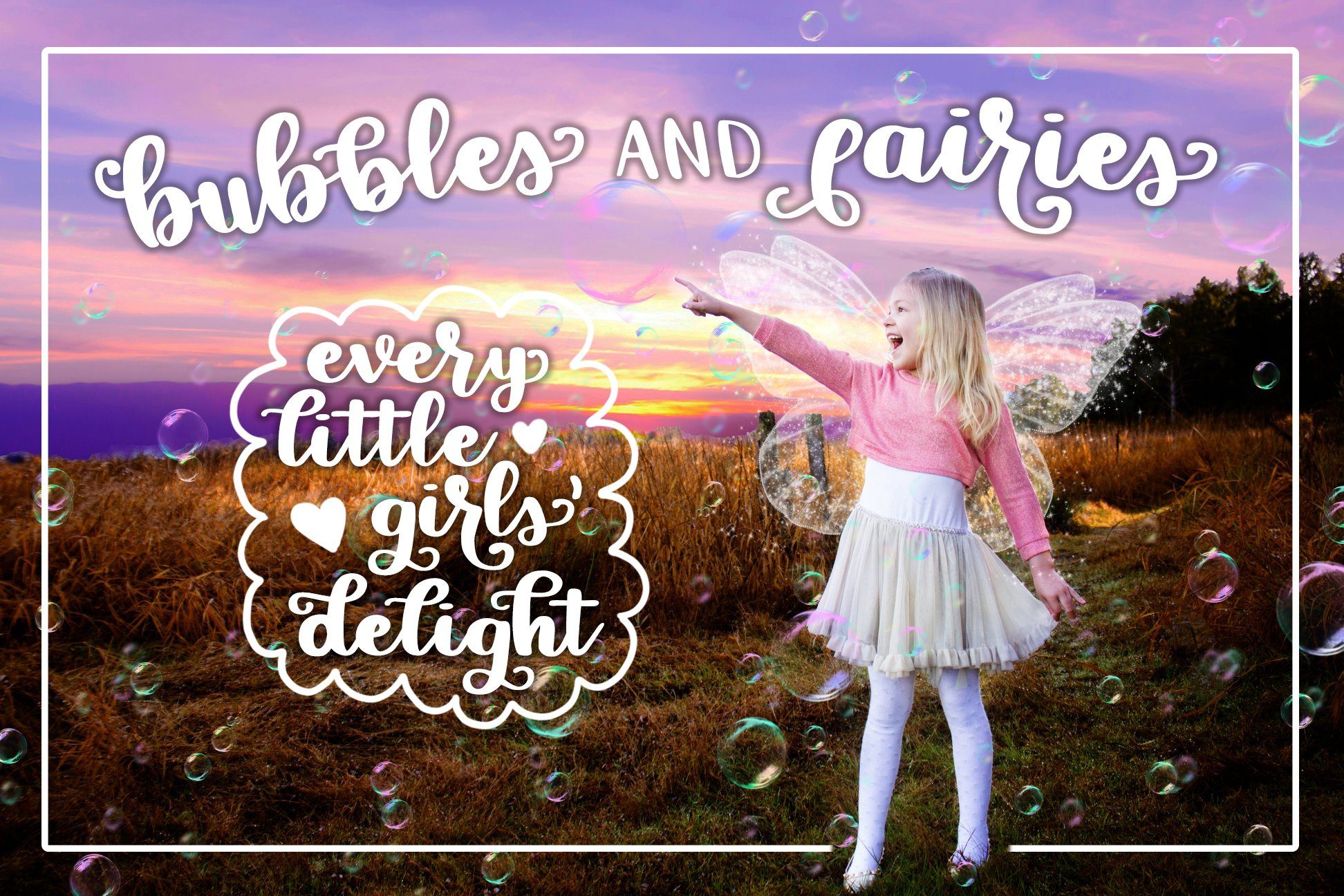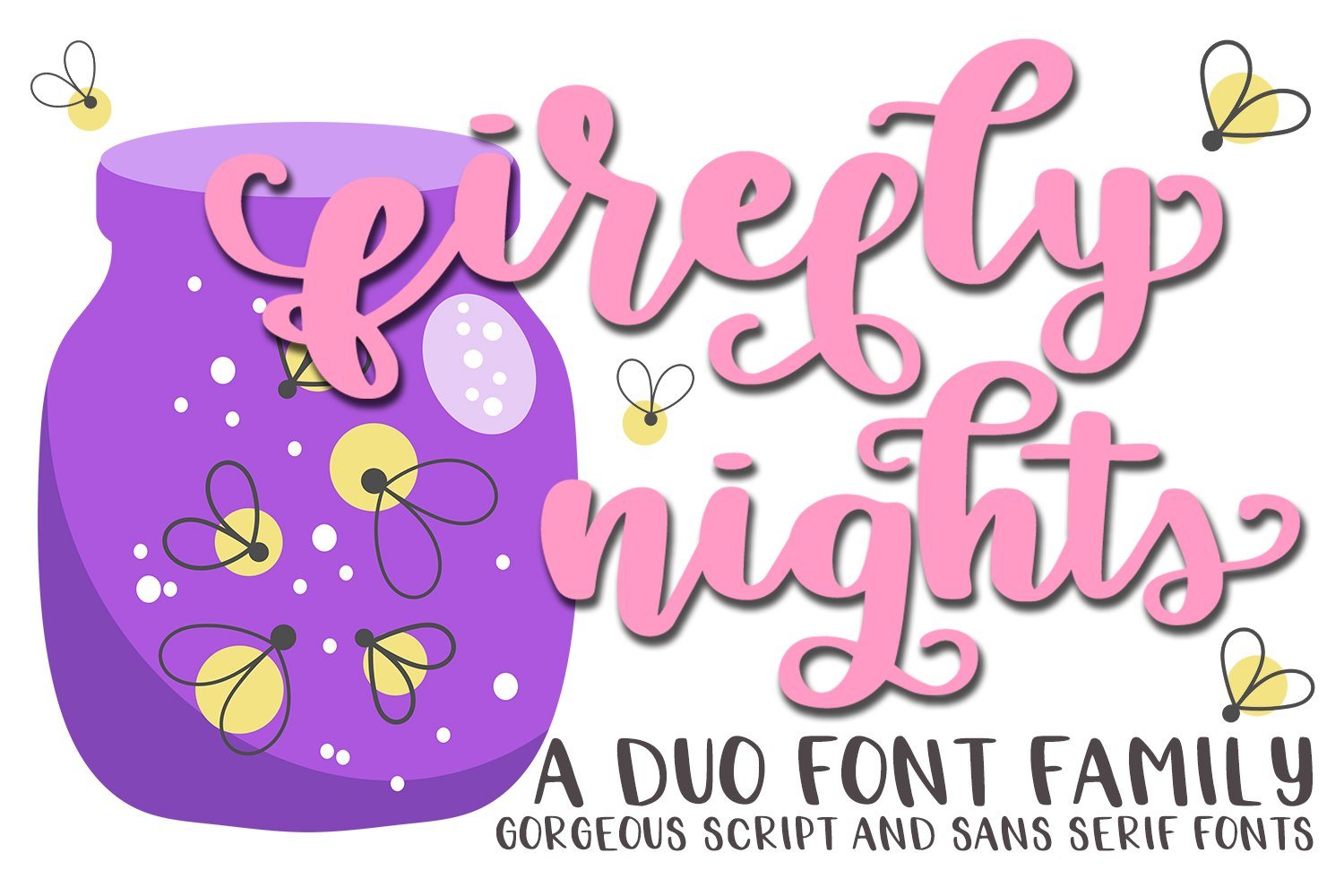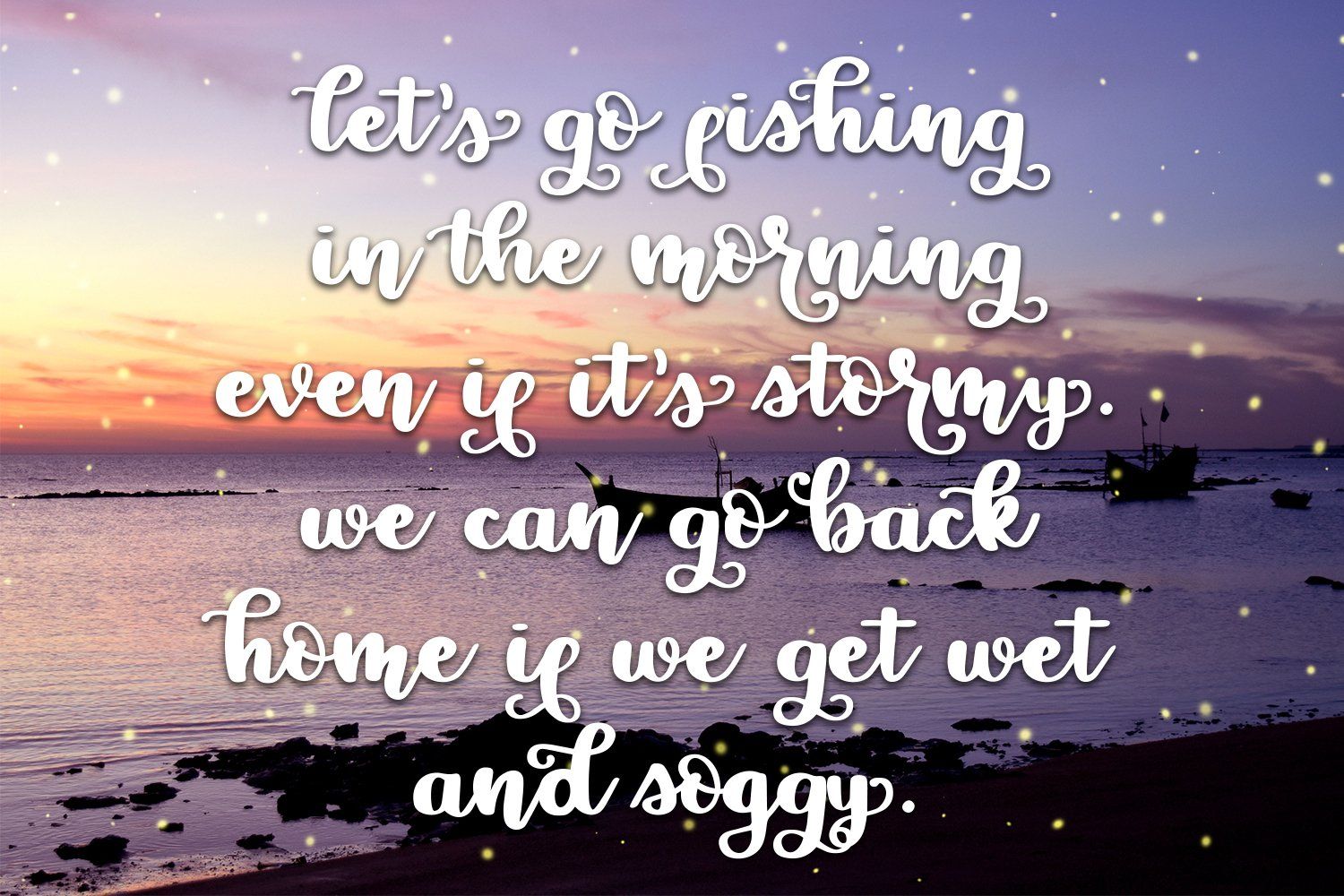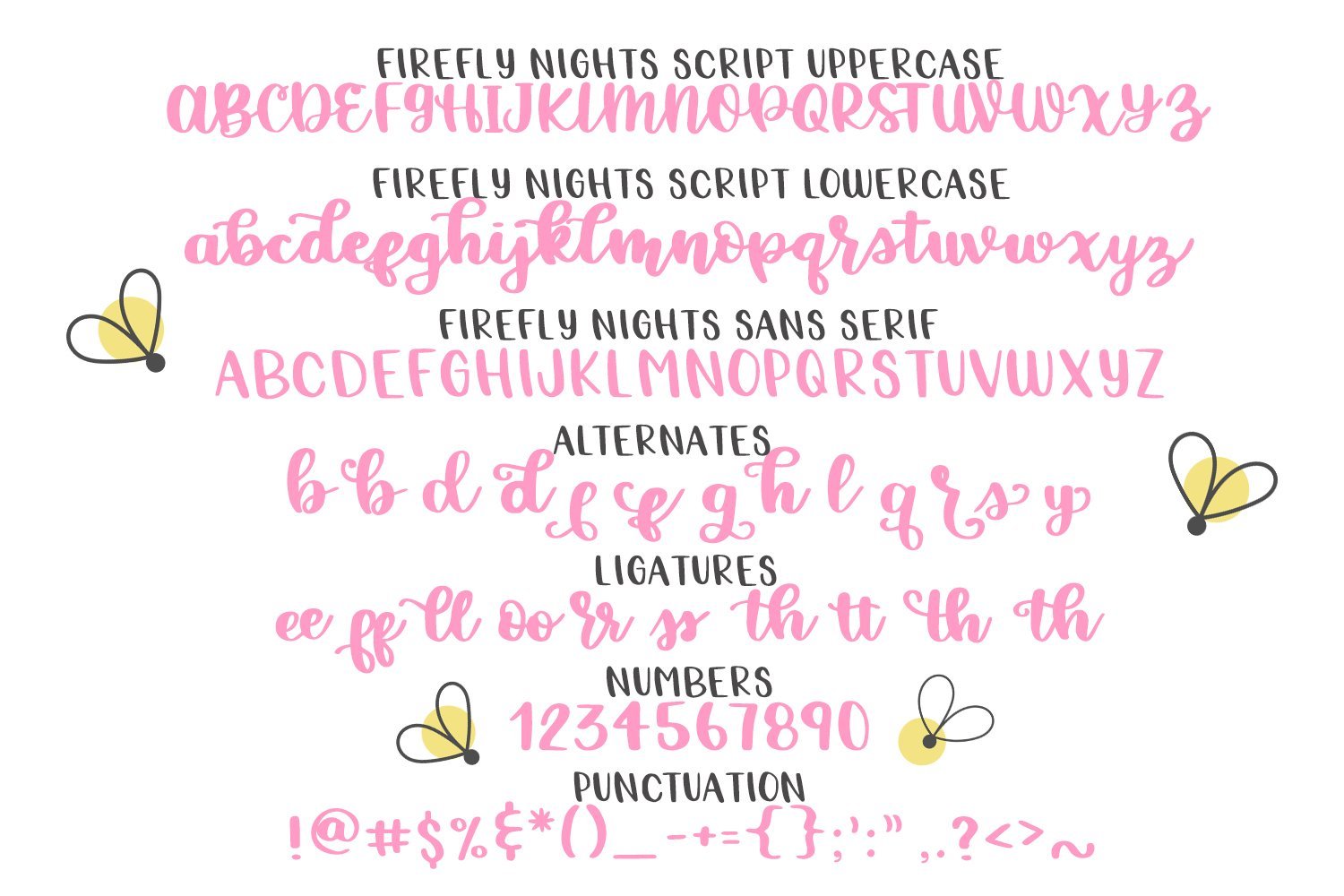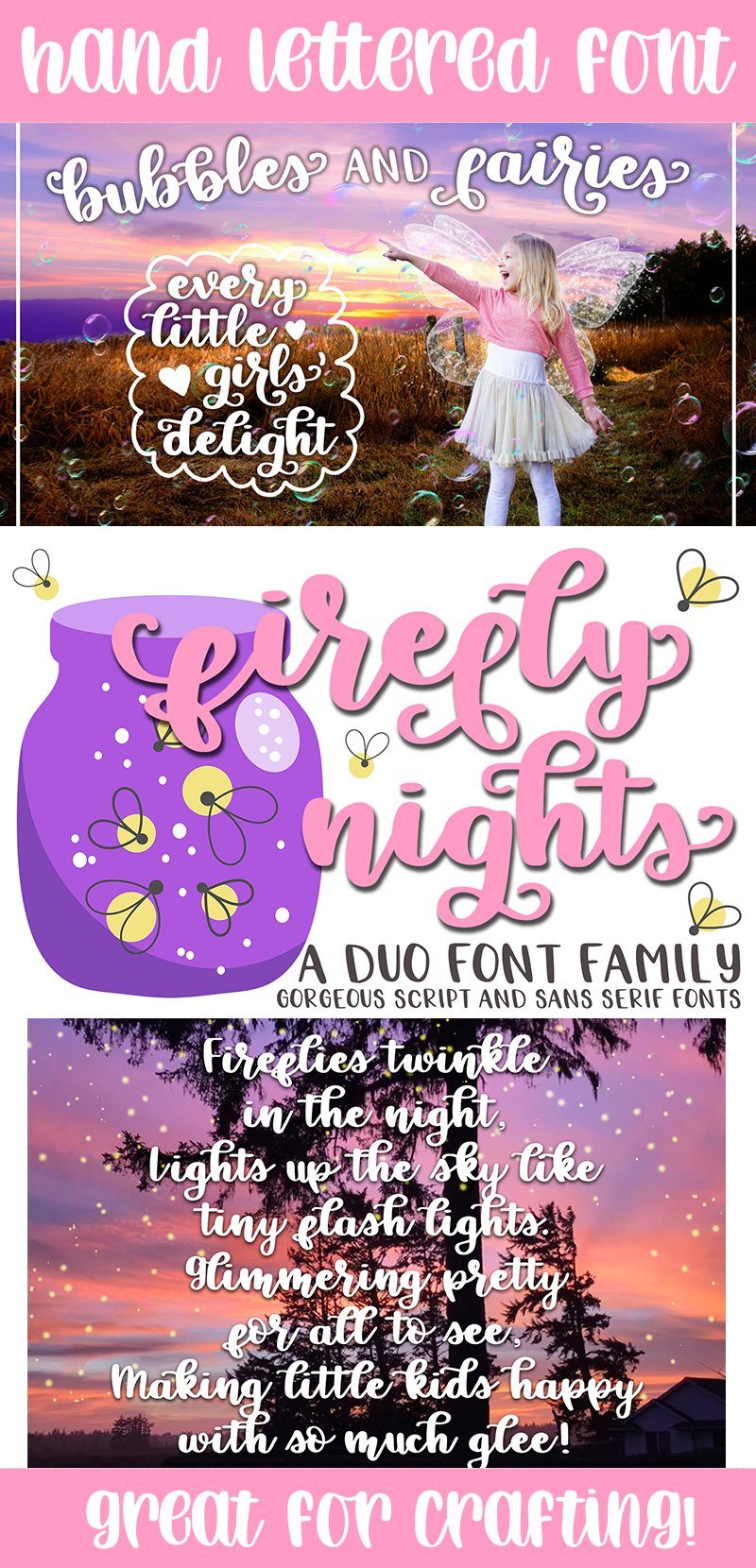
About Firefly Nights – A Duo Font Family – Pretty Script
Here I have ‘ Firefly Nights’ – a pretty hand lettered script font that also comes with a Sans Serif Font. This work of art is made with minimal nodes which makes it wonderful to work with when crafting with a cutting machine. The benefit to minimal nodes allows for smooth cutting and weeding to be a breeze! (Can I get an ‘AMEN’!?) Purchase today to start those creative juices flowing in designing something completely trendy & epic! This listing comes with Firefly Nights Script , which has Uppercase, Lowercase, Numbers, Punctuation, Alternates and Ligatures. You will also receive Firefly Nights Sans Serif font, which is an Uppercase only font. These two fonts make it perfect for crafting and look awesome on T-shirts, mugs, cards and so much more! Font files come in OTF & TTF formats and work in all software like Word, Photoshop, Illustrator, Inkscape and more.